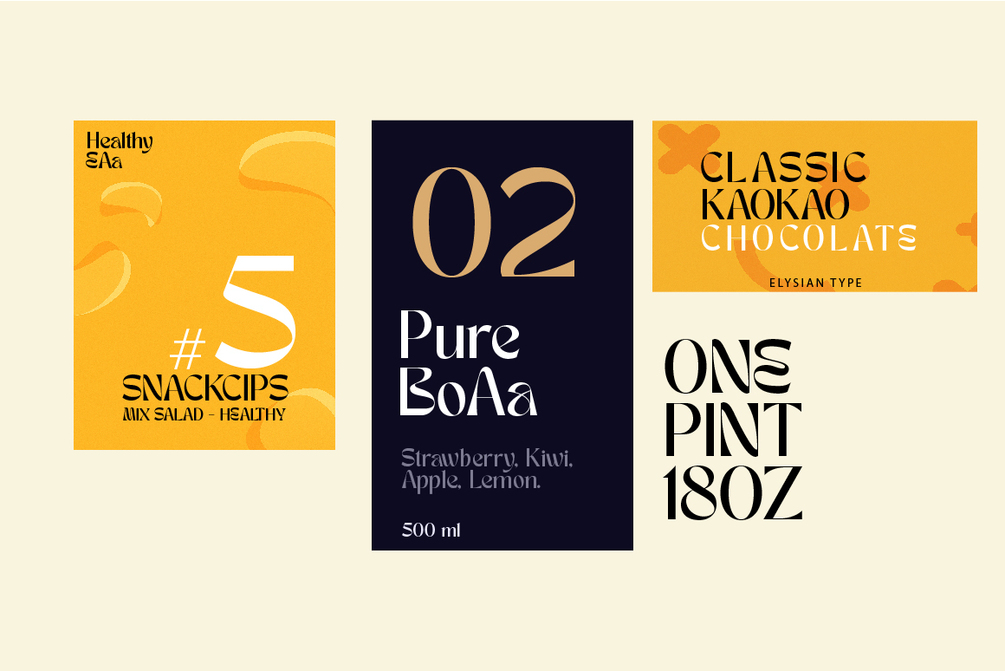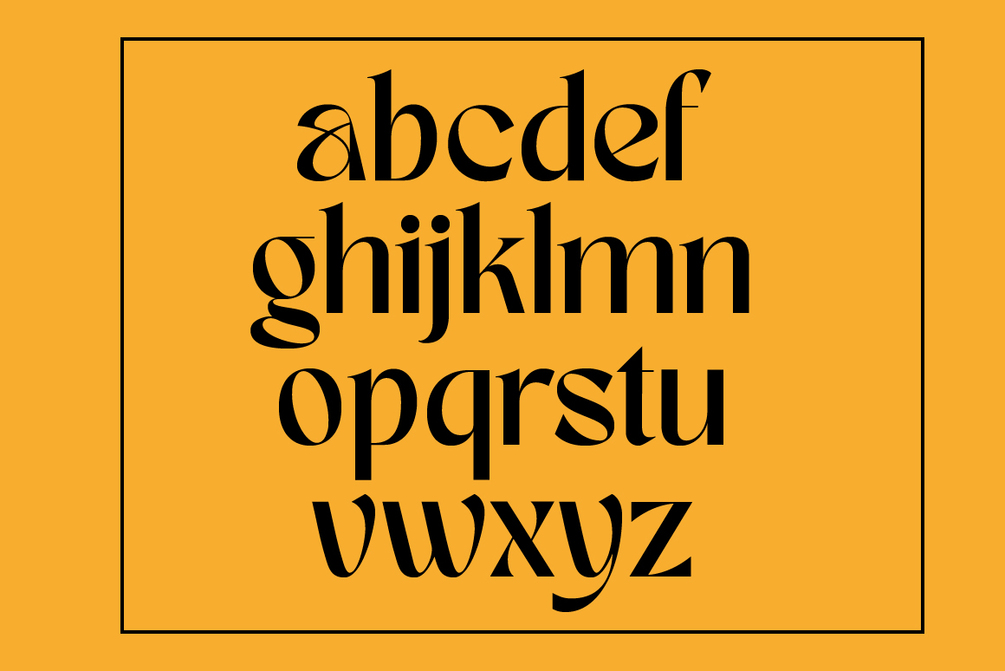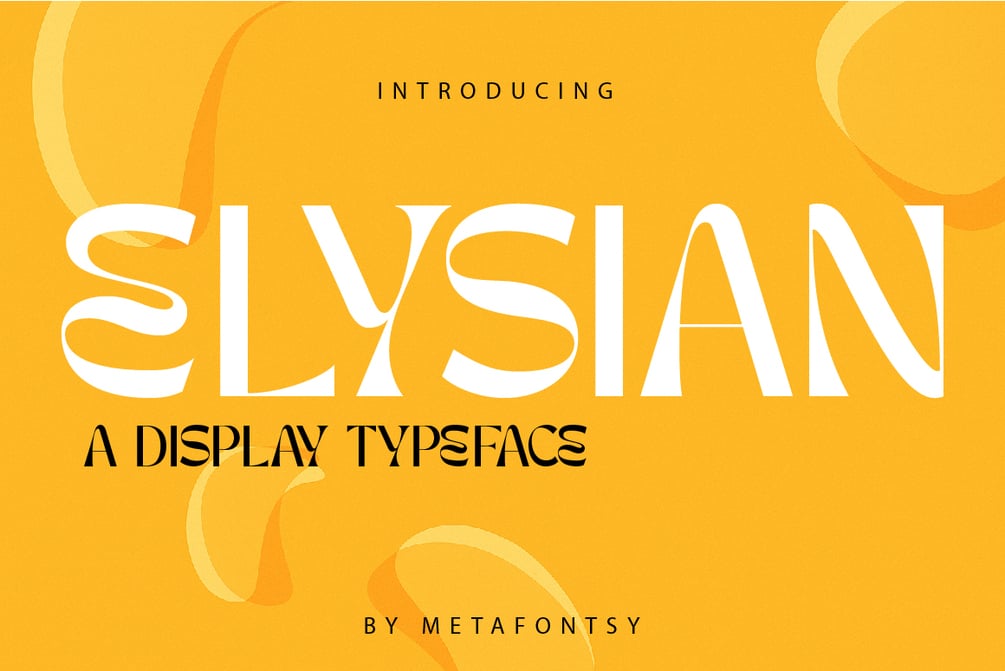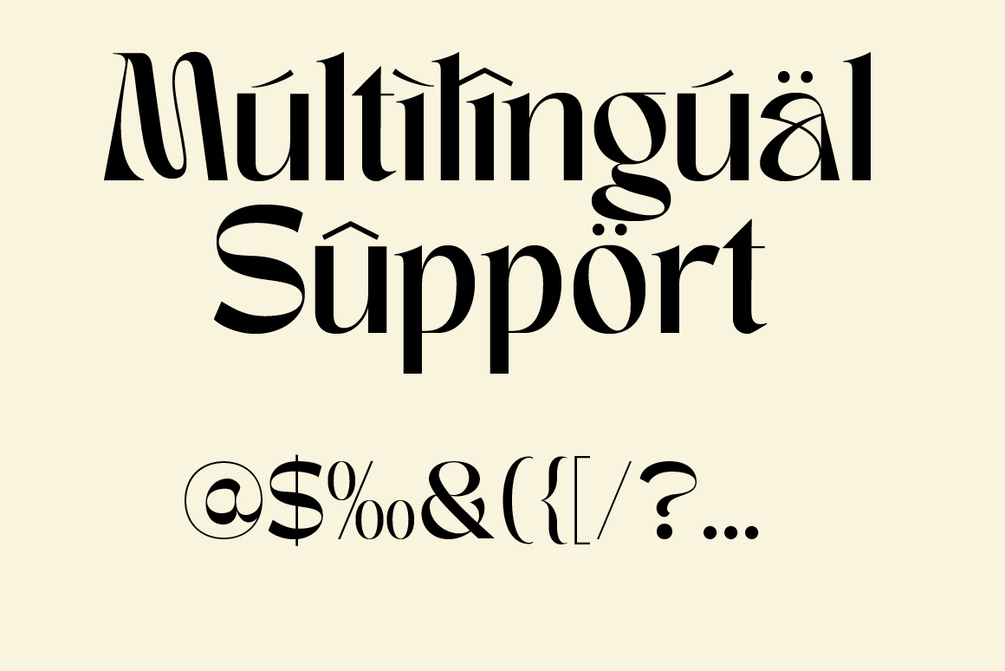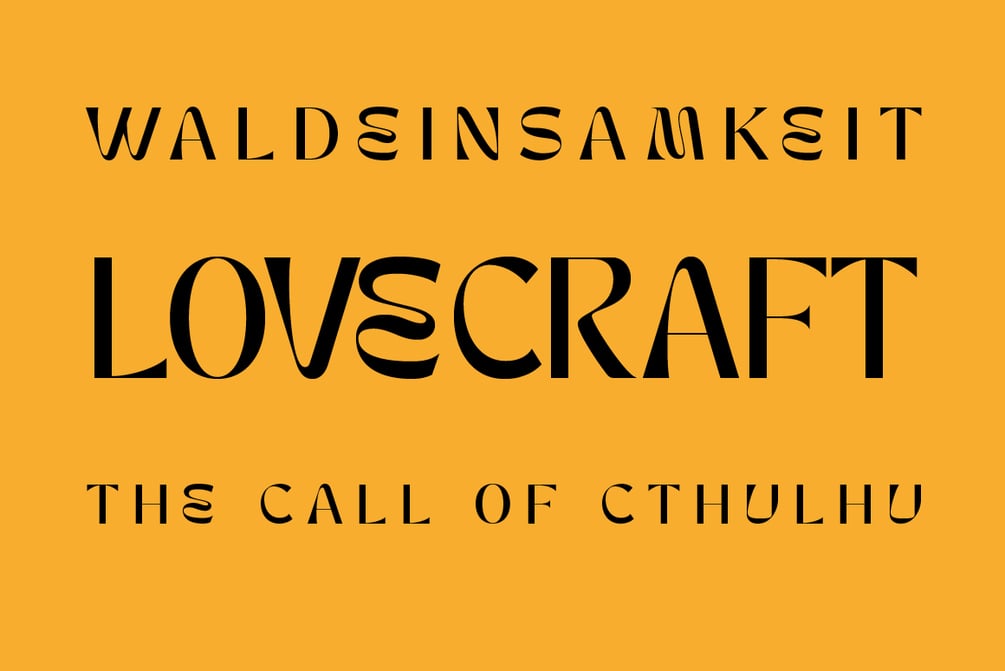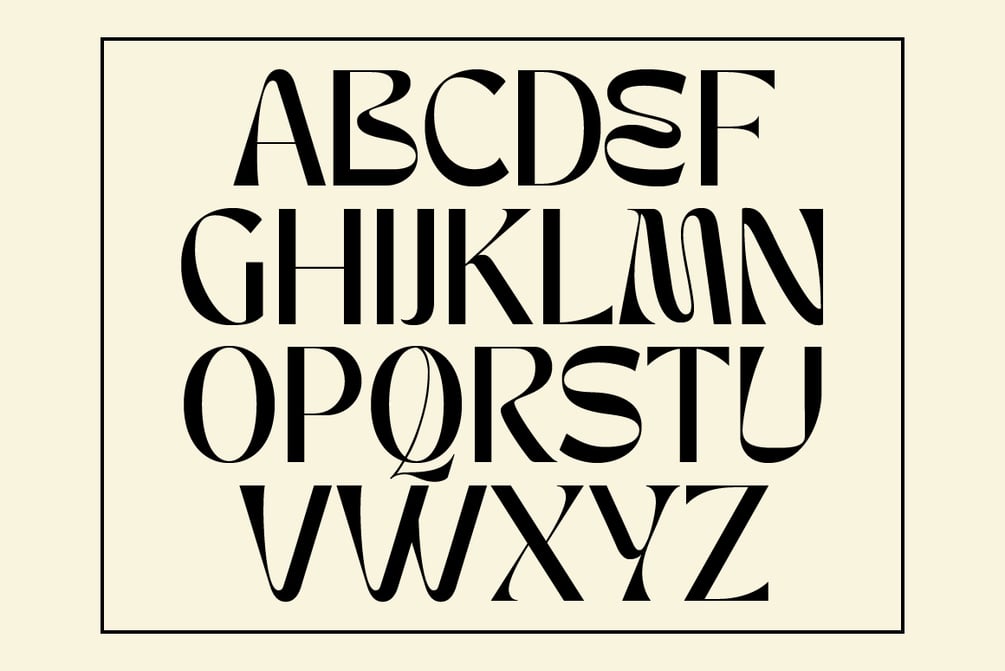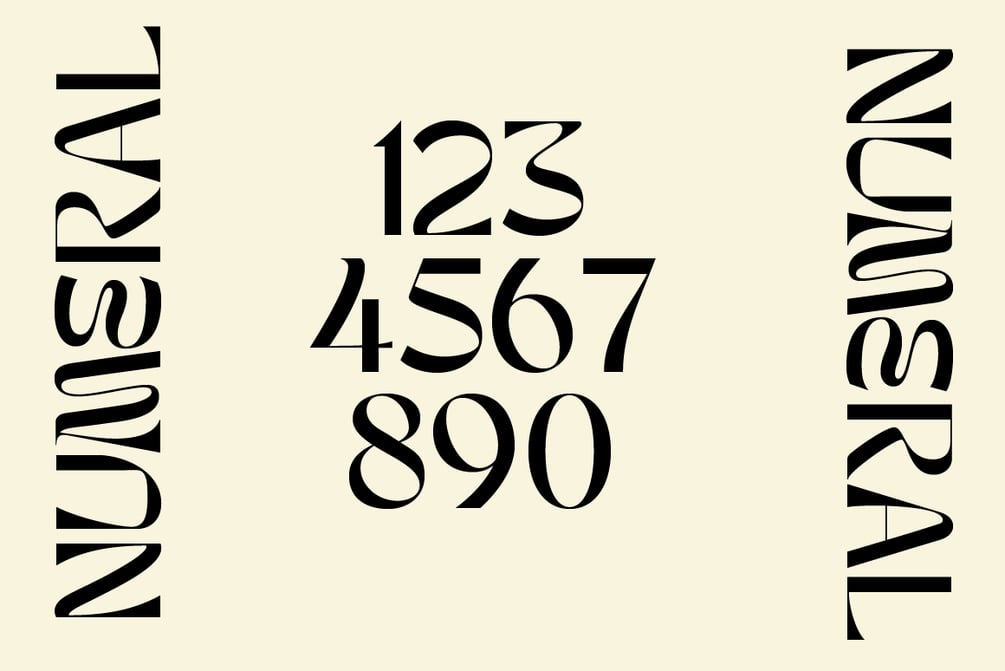
Elysian - Stylish Display Font
Elysian is a sophisticated and contemporary display typeface designed to captivate attention with its elegant curves and sharp geometric forms. The design combines modern minimalism with artistic flair, making it ideal for branding, editorial layouts, and high-impact titles. Its bold yet graceful letterforms exude creativity and style, offering a perfect balance between refinement and expressiveness. The presentation features a vibrant golden background that enhances the typeface’s luxurious and modern aesthetic.
- Alphabet Characters
- Numeral, Punctuation & Symbol
- Ligature & Stylistic Alternate Letters